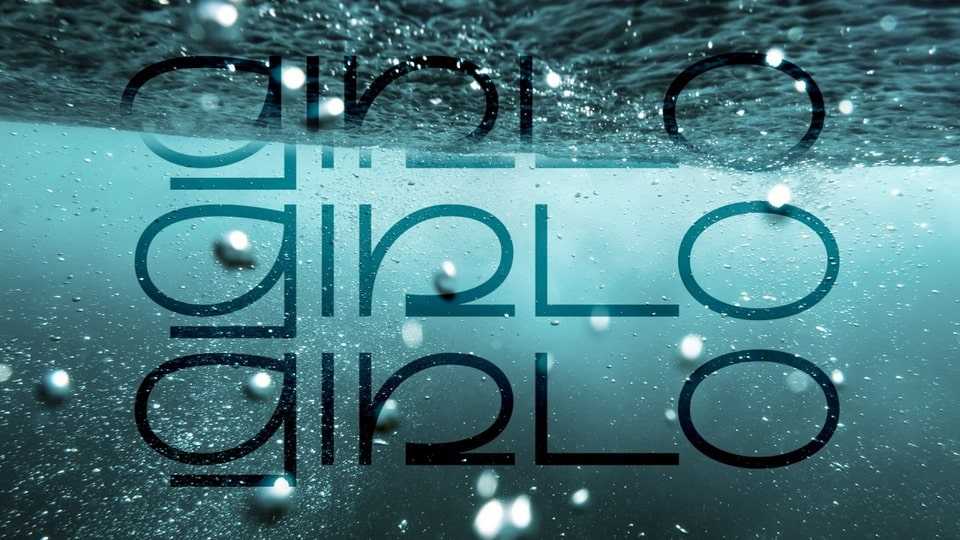
Download Girlo SP font, a display typeface in a modern style with an unusual shape of characters, inspired by the Nima fonts from ESH Gruppa and Archive Antique from Archive Type.
Designer: Sasha Pavljenko